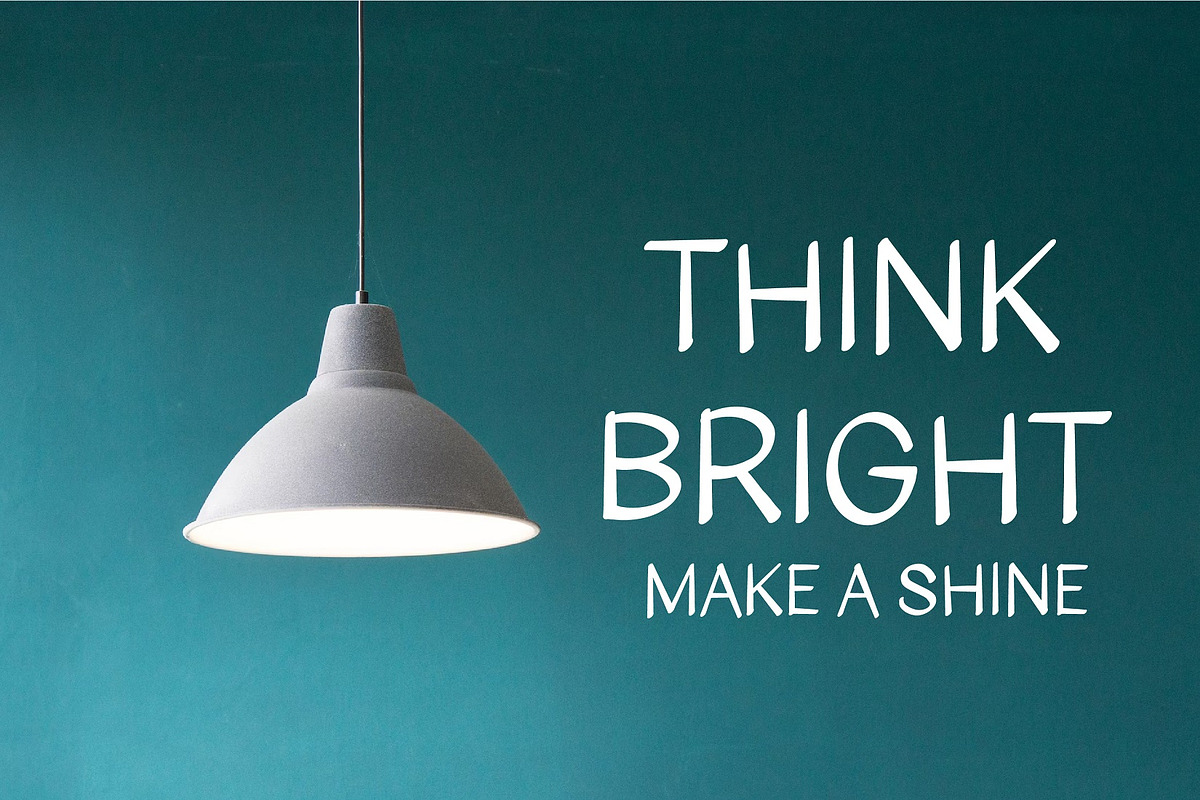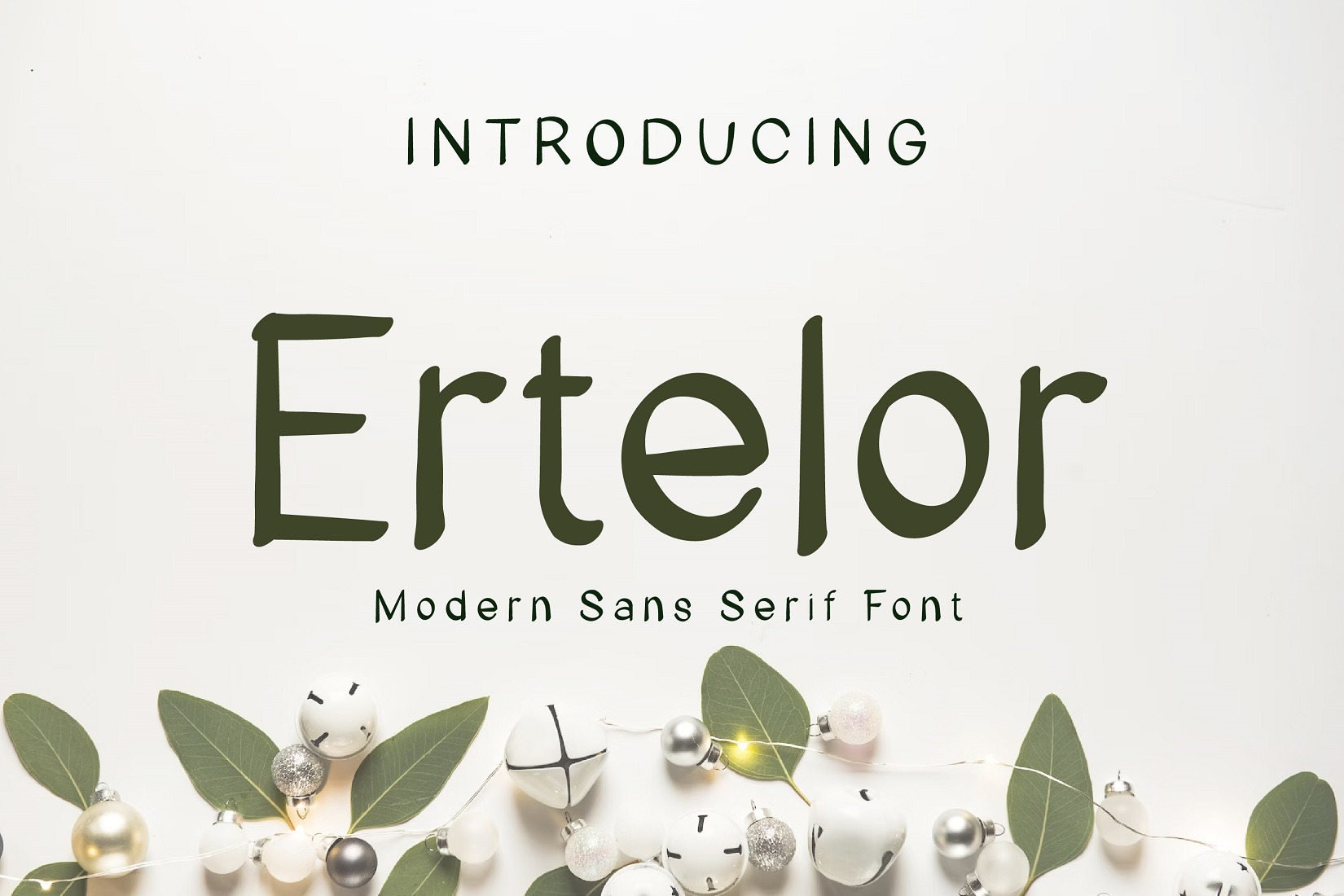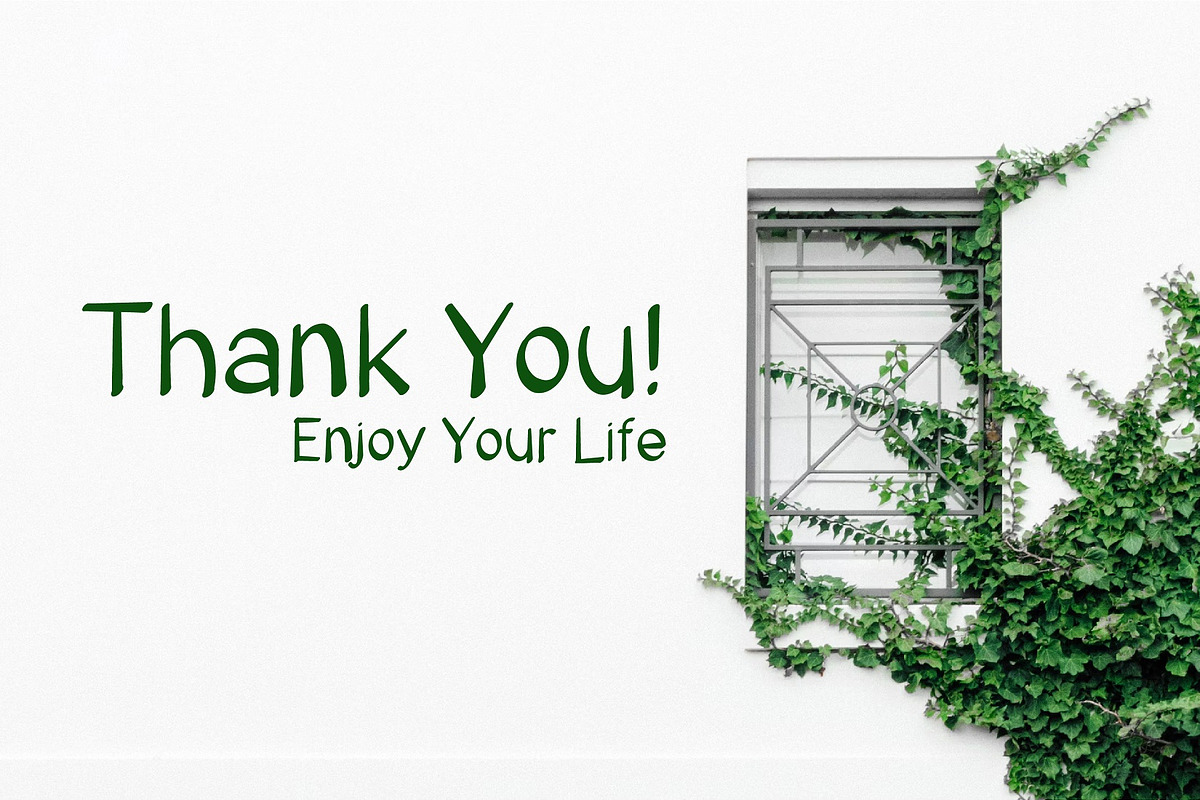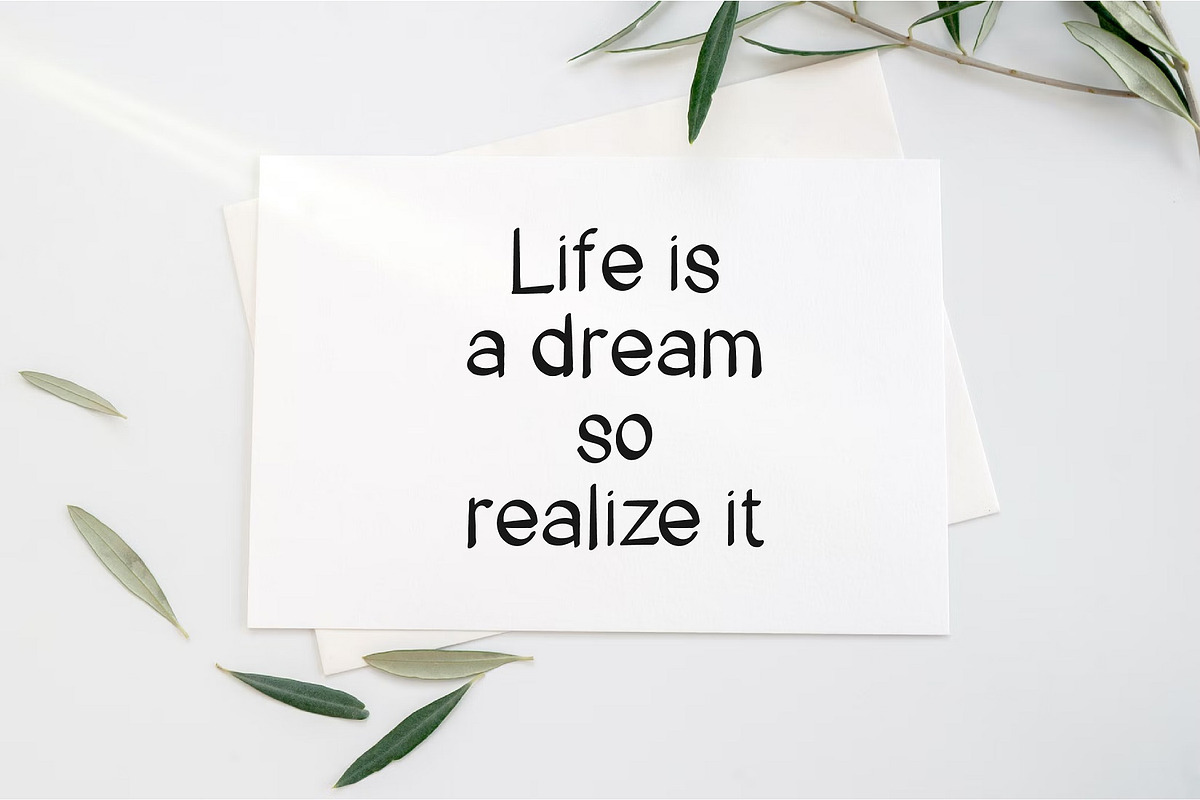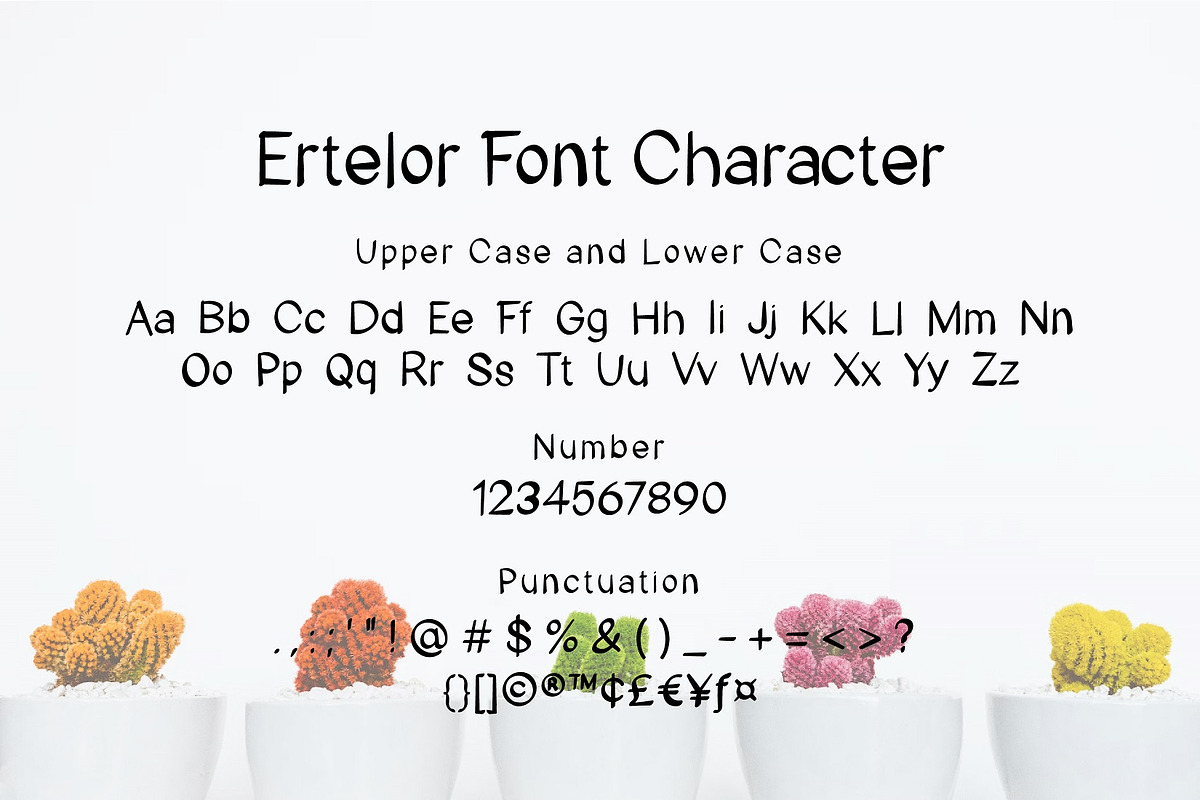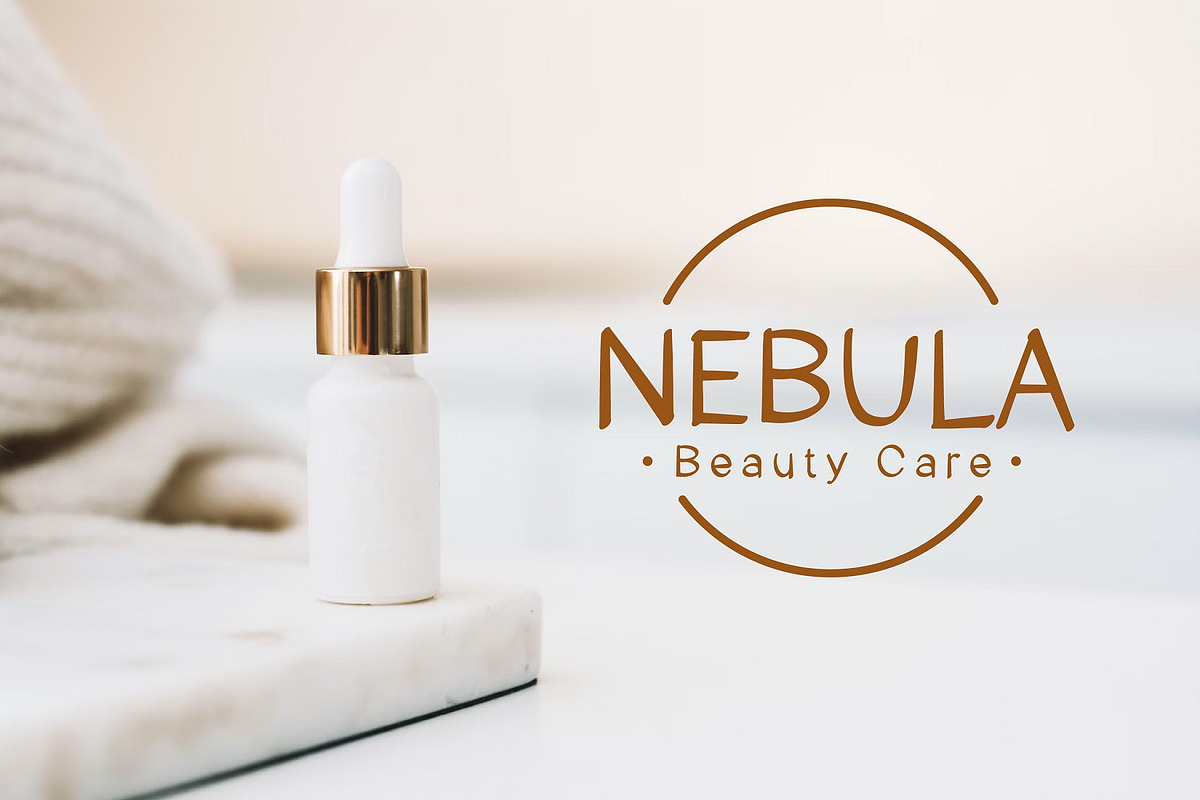
Ertelor Modern Sans Serif Font
Introducing Ertelor - Modern Sans Serif Font
Ertelor is a fun sans serif font. Breadness good for logotype, label, badge, headline, signature, packaging and any more.